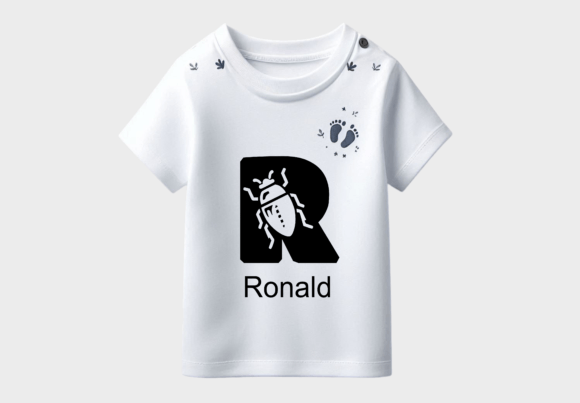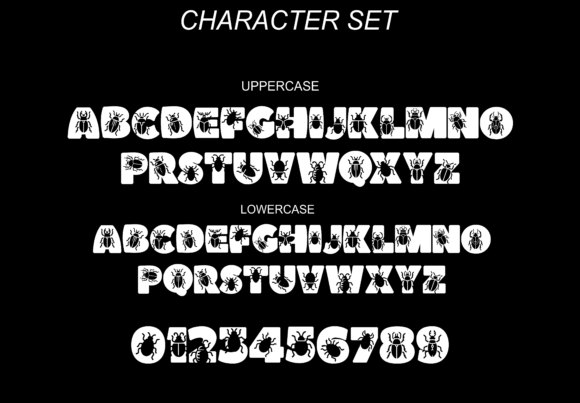
A Moment of Creative Discovery
Have you ever stared at a blank canvas, sketchpad, or screen, and suddenly, a spark of inspiration strikes? The ideas start flowing, and your creative vision begins to take shape. This is the moment when the possibilities seem endless, and the world of design opens up before you. It’s a feeling that’s hard to replicate, but what if you had the perfect tool to enhance this experience and take your creative endeavors to the next level?
Enter Bug Font, a revolutionary typeface designed to elevate your artistic expression and leave a lasting impression. With its unique blend of precision and unpredictability, Bug Font is the perfect companion for designers seeking to push the boundaries of creativity. By harnessing the power of Bug Font, you’ll be able to infuse your work with an irresistible allure that sets it apart from the rest.
Bug Font Key Features
- Unique Characteristics: Bug Font features a unique, hand-drawn style with bold lines and rounded edges, giving it a playful and whimsical feel.
Review: Bug Font
At first glance, Bug Font ✨ seems like a fun and quirky addition to any project. The unique blend of insect-inspired shapes and minimalist styling makes for an eye-catching display font.
The Bug Font’s strengths lie in its creative use of negative space, creating an almost 3D effect in some characters ✨. The font also excels in its adaptability, making it suitable for both digital and print projects.
However, Bug Font also has its limitations ⚠️. The inconsistent stroke width and irregular shape of some characters can make it difficult to read in certain contexts. Additionally, the font may not be suitable for projects requiring a high level of precision or technical accuracy.
- Unique blend of insect-inspired shapes and minimalist styling
- Creative use of negative space for a 3D effect
- Adaptable for both digital and print projects
- May not be suitable for projects requiring precision or technical accuracy
Overall, Bug Font is a great choice for projects where a touch of whimsy and creativity is desired ✨. Just be mindful of its limitations and use it accordingly.
Here are some tips and common use cases for Bug Font:
- Use Bug Font for creative and playful designs, such as children’s book illustrations or cartoon characters.
- Experiment with different font sizes and colors to create a unique and eye-catching effect.
- Combine Bug Font with other creative elements, such as illustrations or graphics, to create a cohesive and engaging design.
Alternatives to Bug Font for Designers
Bug Font is a distressed font often used for its rough, vintage look. However, designers may want to explore other alternatives to add unique flair to their designs. Here are a few options:
Great Vibes is a handwritten font with a relaxed, casual feel. It’s perfect for creating a laid-back atmosphere in designs, such as for travel or lifestyle brands. Compared to Bug Font, Great Vibes has a more organic, free-flowing style, while Bug Font is more distressed and rough.
Pacifico is a beautiful, elegant font with a touch of vintage flair. It’s ideal for designs that require a sense of sophistication, such as for luxury brands or high-end products. In contrast to Bug Font, Pacifico has a more refined, polished look.